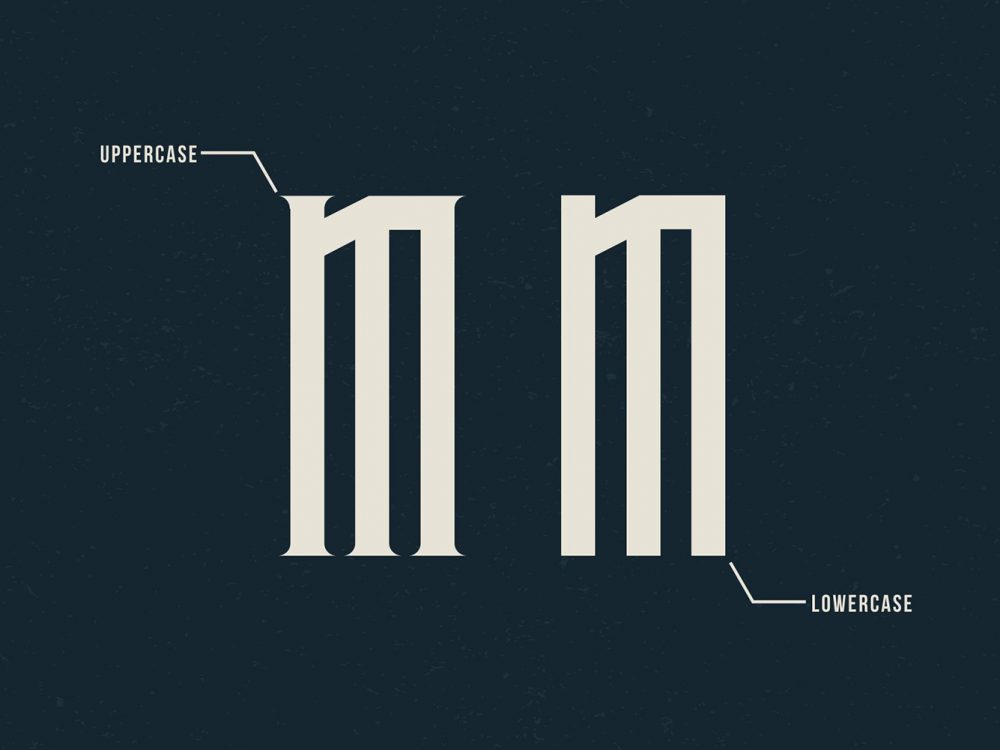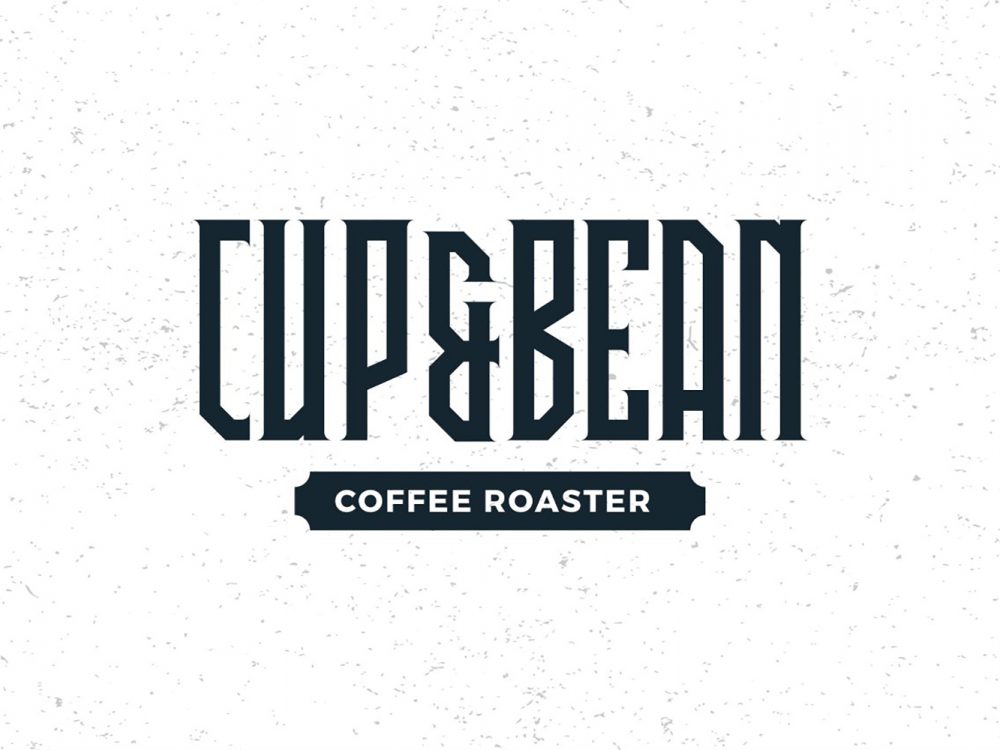
Avriella Font Demo
Avriella Font Demo is an interesting modern bold typeface with sharp corners. This font is perfect for creating various design projects. These can be posters, cards, invitations, branding, mug prints, T-shirts, pillows, and more. If you like the font and want to access more features, check out the full version.